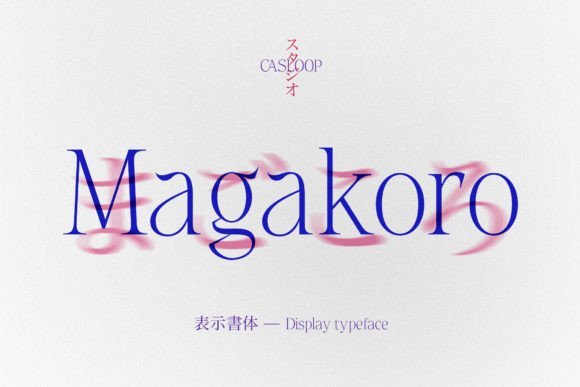
Introduction to Cas Magakoro Font
Introducing CAS Magakoro, the ultimate typeface for designers looking to add a touch of elegance and sharpness to their designs.
With its dynamic and snappy letters, this font is perfect for headlines, display text, and branding Experience the benefits of using a versatile and flexible typeface that can take your designs to the next level.
Key Features of Cas Magakoro Font
Why Choose Cas Magakoro Font?
Cas Magakoro Font offers exceptional quality and versatility, making it a valuable addition to your design toolkit. Whether you’re creating for personal projects or commercial use, Cas Magakoro Font delivers professional results.